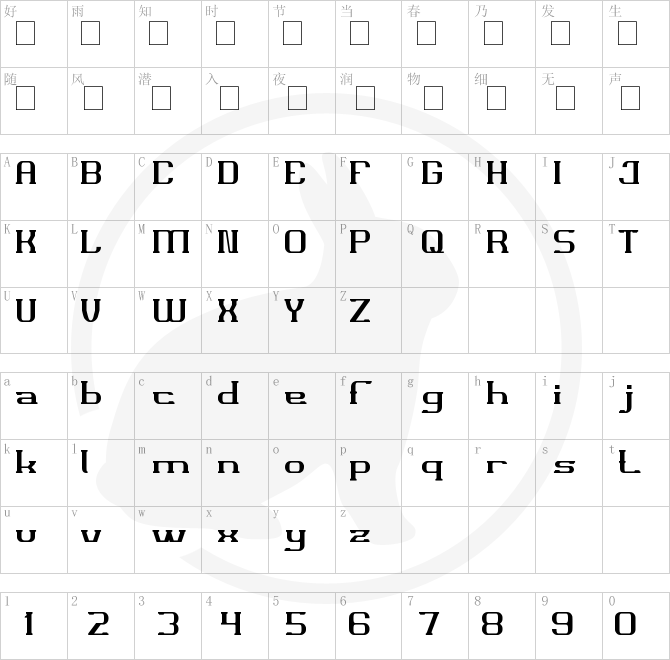
Wajah-mu-Malaikat.ttf is a very beautiful artistic font, Wajah-mu-Malaikat.ttf is widely used in the design and printing of various books and pictures,Wajah-mu-Malaikat.ttf has a strong visual impact,Wajah-mu-Malaikat.ttf is a commonly used font in newspapers, magazines and books, and is used in posters, e-commerce Poster design, store design, logo design, font design and other fields.Wajah-mu-Malaikat.